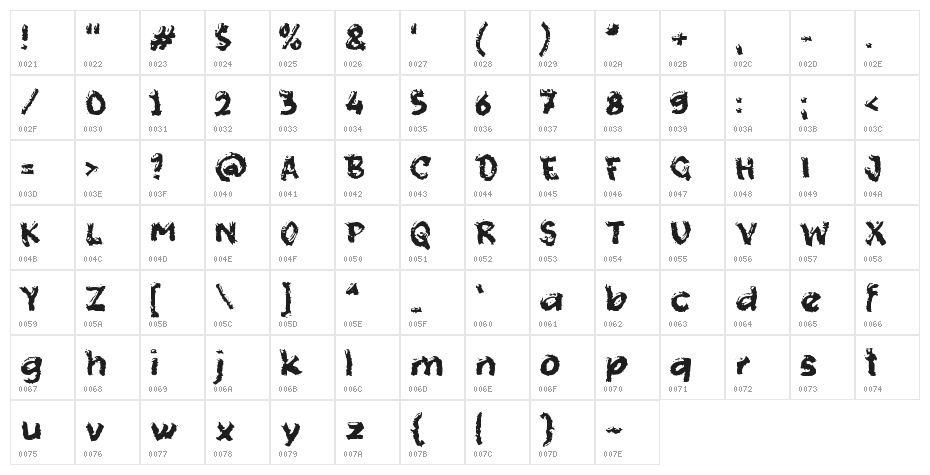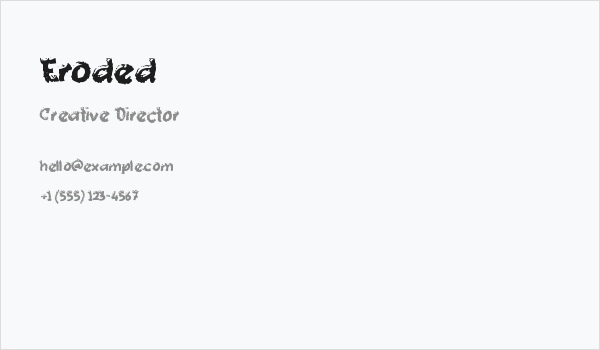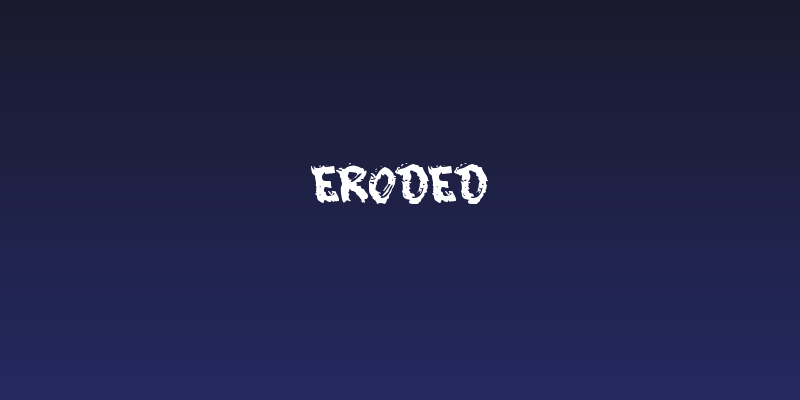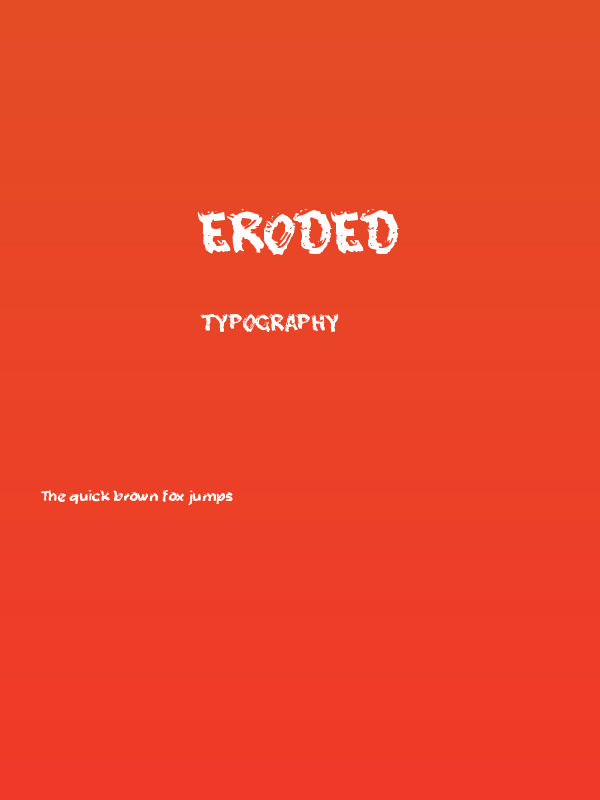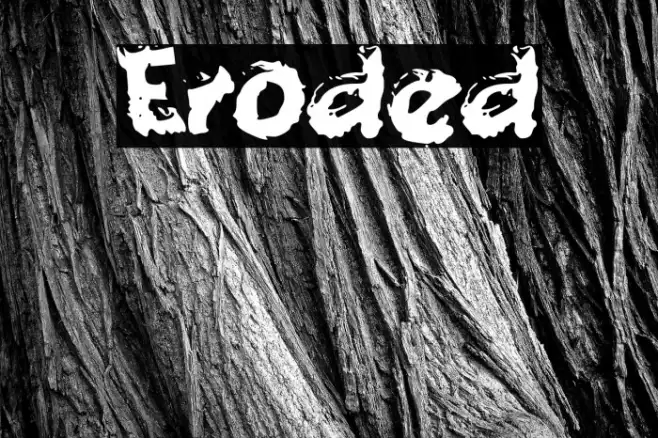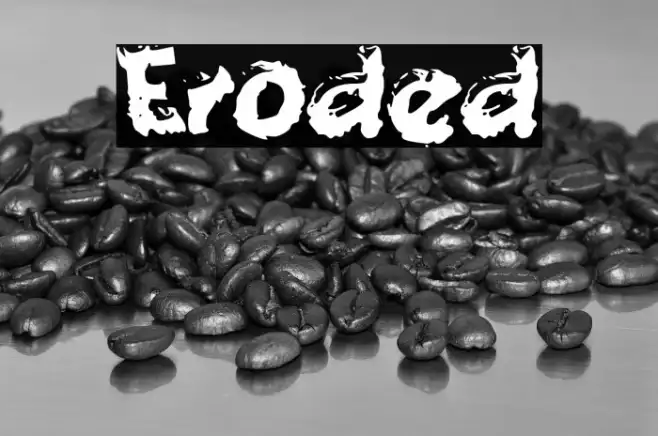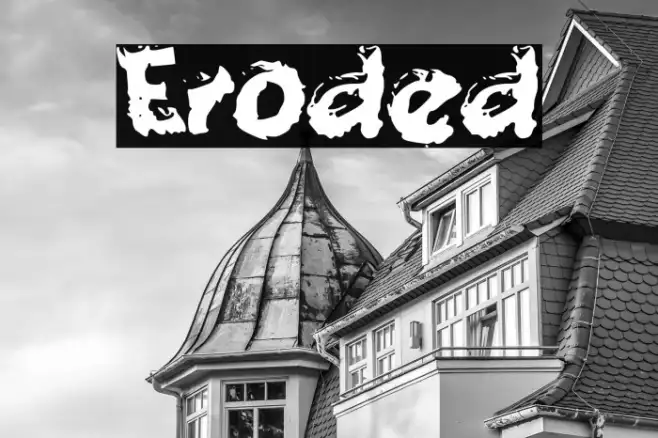
Eroded Font
Eroded Description
This font features a rugged, distressed appearance, reminiscent of eroded surfaces or weathered textures. The characters are bold and have a rough, uneven edge, giving them a dynamic and energetic feel. The uppercase and lowercase letters maintain a consistent style, with jagged edges and irregular shapes that suggest a sense of decay or erosion. The numbers and special characters follow the same aesthetic, making the font suitable for projects that require a gritty, raw look. Its unique style is eye-catching and can add a dramatic flair to any design.
| Proposed Projects | Ideal for posters, album covers, video game graphics, or any project needing a gritty, weathered look. |